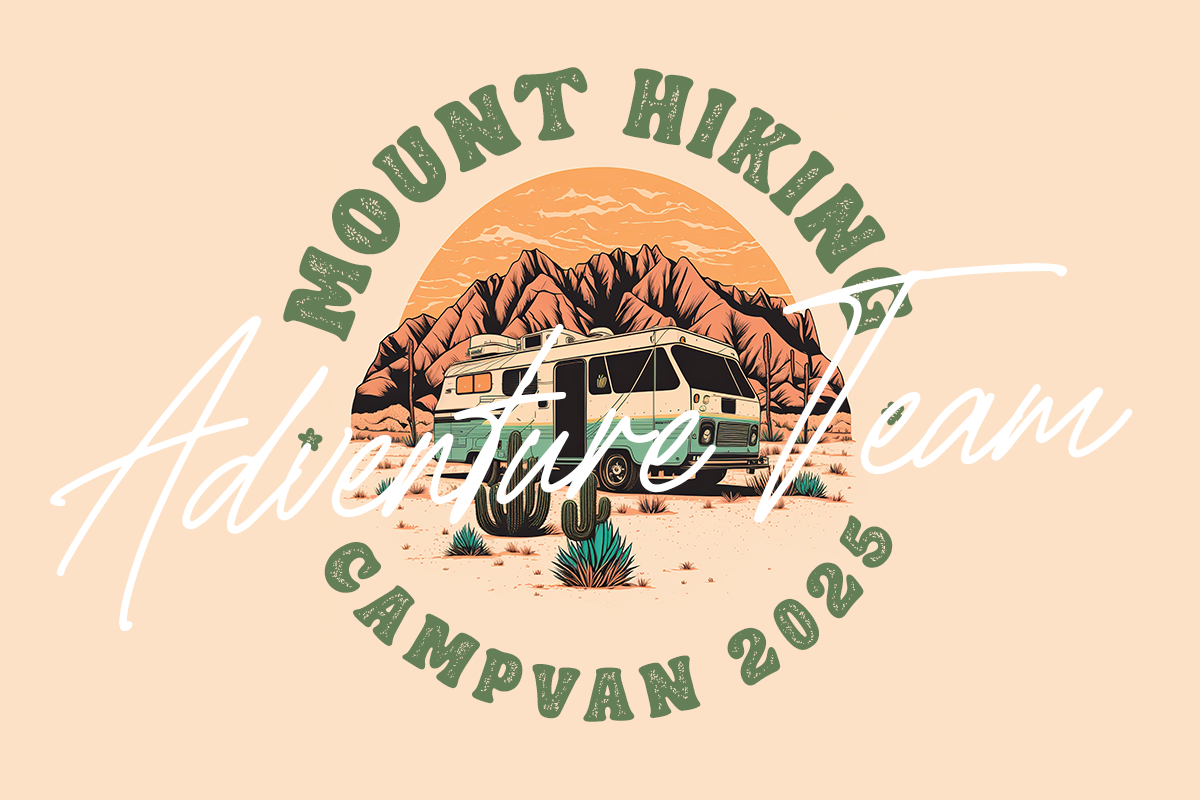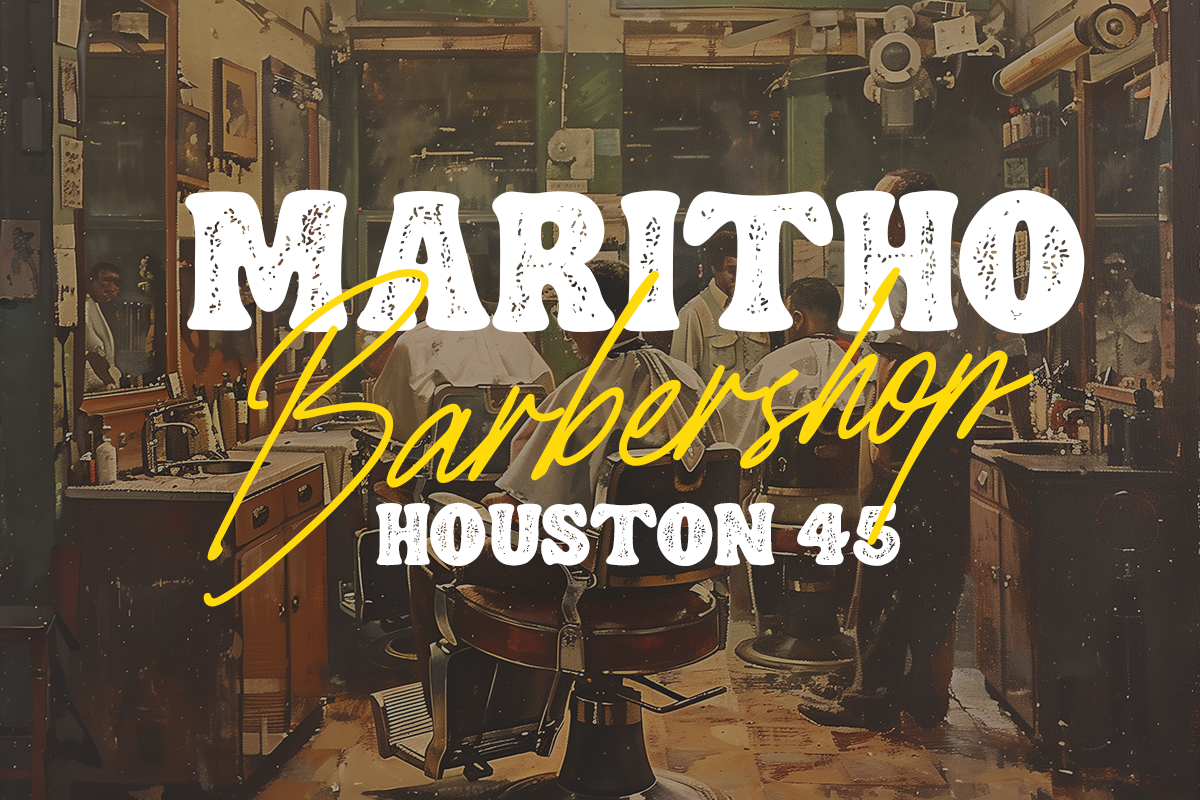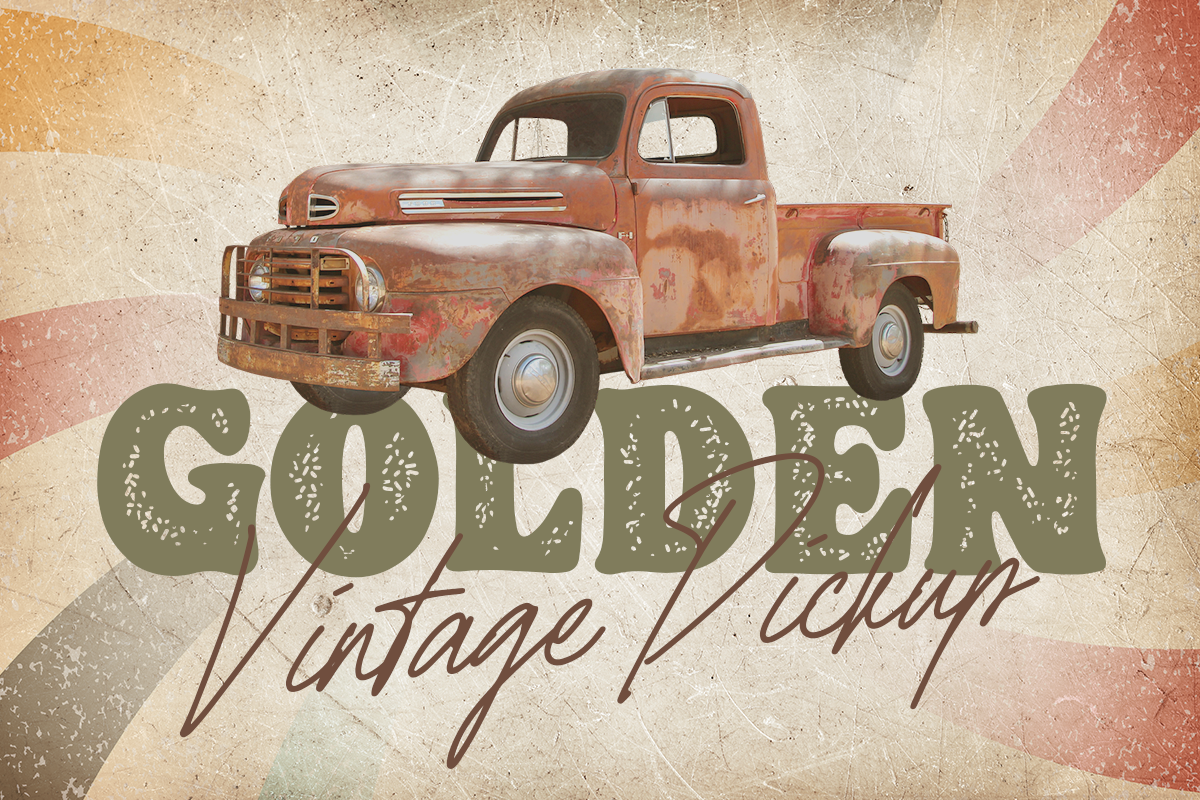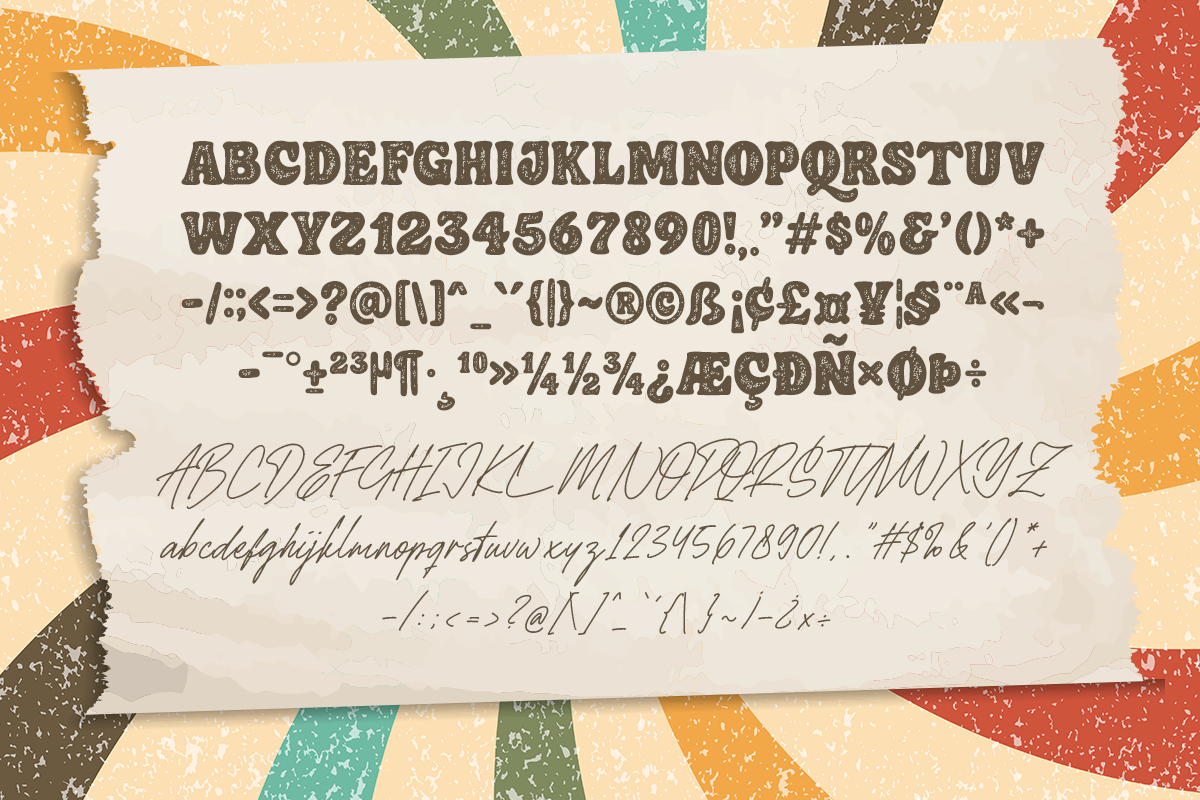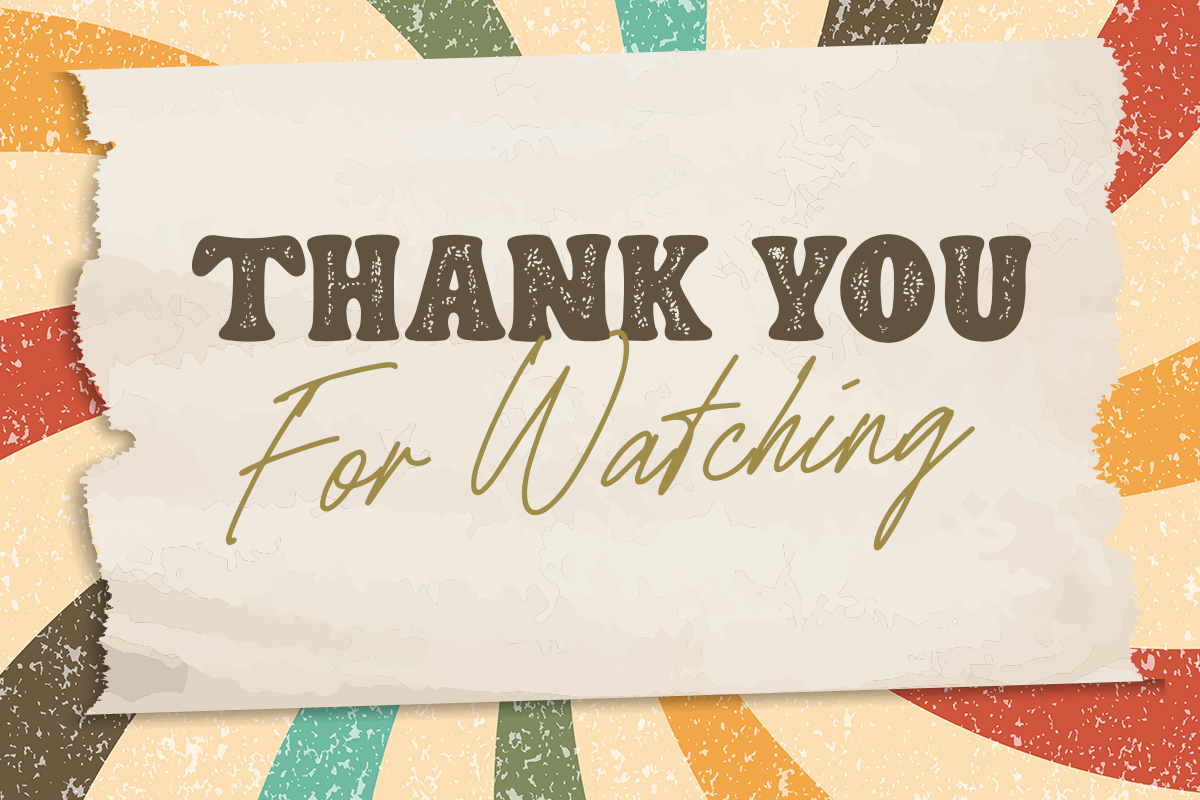
Retrofly A Modern Retro Duo Font An elegant font, Retrofly A Modern Retro Duo Font is a combination of retro font and script font with an elegant and attractive appearance. For this type of font, a brush is used to make it, so that its beauty looks prominent and very real. The brush used in this font is medium-tipped, so that the resulting strokes are long and thin, curved, and continuous. This type of font is the best font to use for formal events such as weddings, graduations, or gender parties and baby showers. You can also use it on invitations, letters, souvenirs, or thank you cards. Retrofly A Modern Retro Duo Font will give a simple yet elegant impression to anyone who sees it. From the explanation of these characteristics and uses, Retrofly A Modern Retro Duo Font is an aesthetic font. For other formal events such as art exhibitions, you can use Retrofly A Modern Retro Duo Font on exhibition titles, team jerseys, nameplates, and other items. This font can be applied as a digital font or a printed font. Combined with the right theme, supporting images, and atmosphere, the beauty of Retrofly A Modern Retro Duo Font will radiate like sunlight that illuminates the room. Our Display font collection is used as Figma Fonts, Canva Fonts, Freepik Fonts, and Adobe Fonts. They also work as Windows Fonts and Apple Fonts. For your social media needs, you can use and install fonts in our Script & Signature font collection to use as Instagram Fonts, Facebook Fonts, and Twitter Fonts.